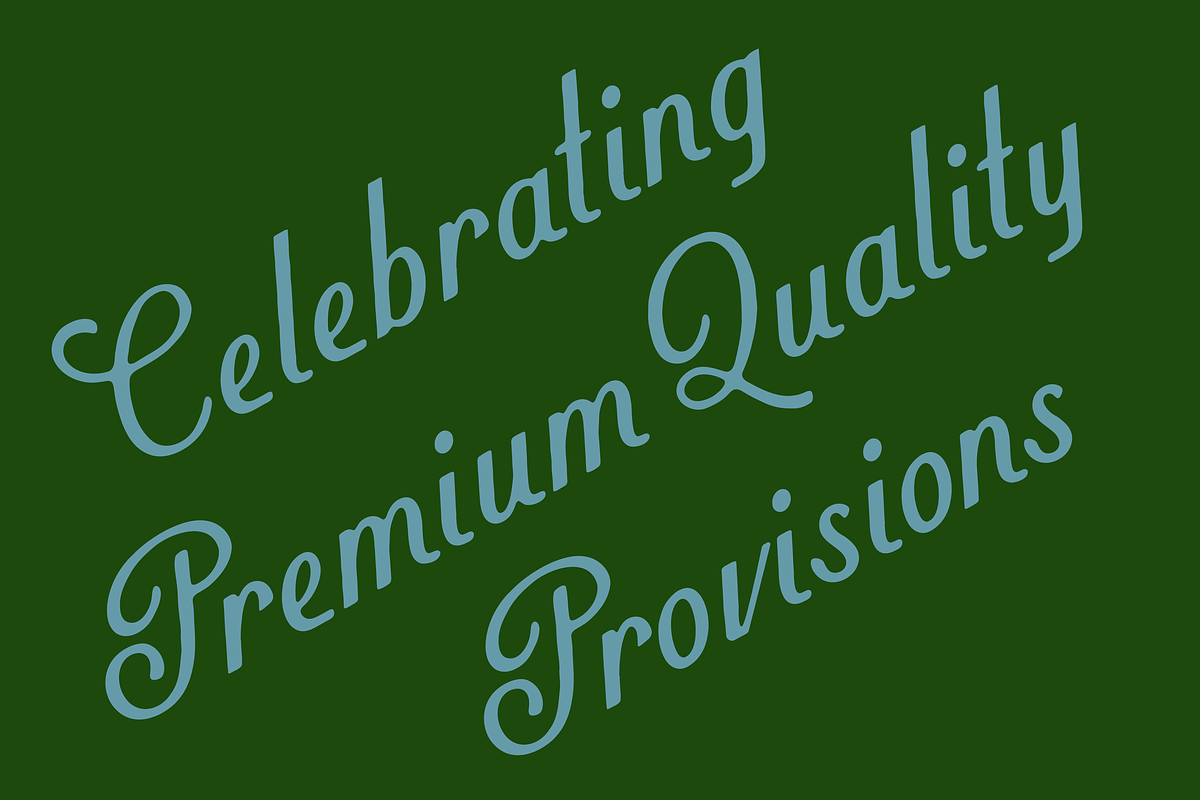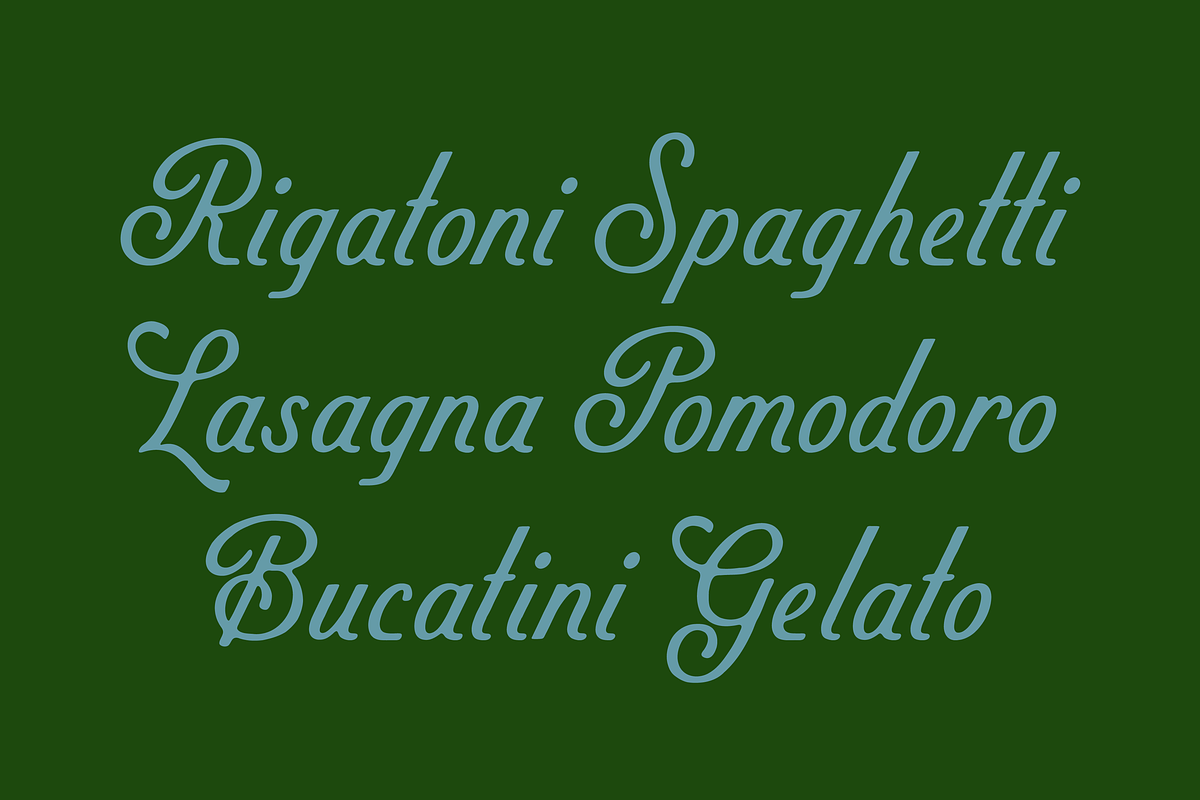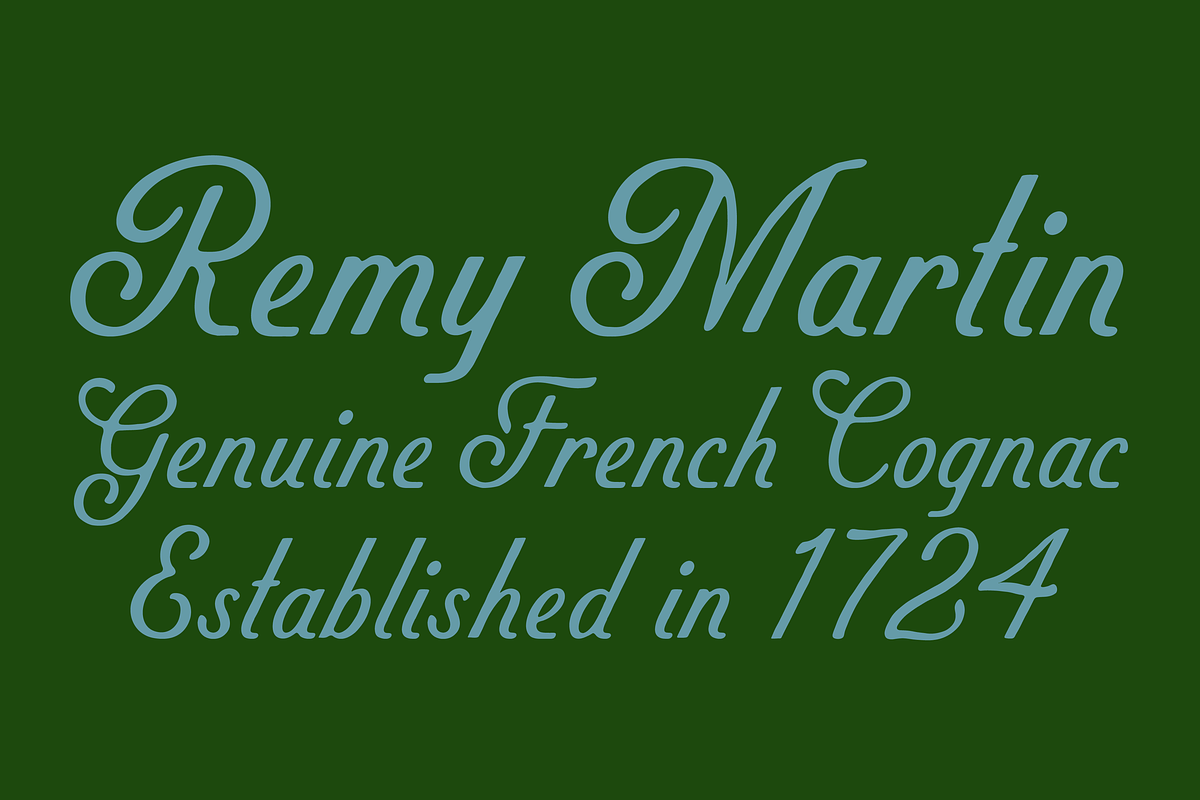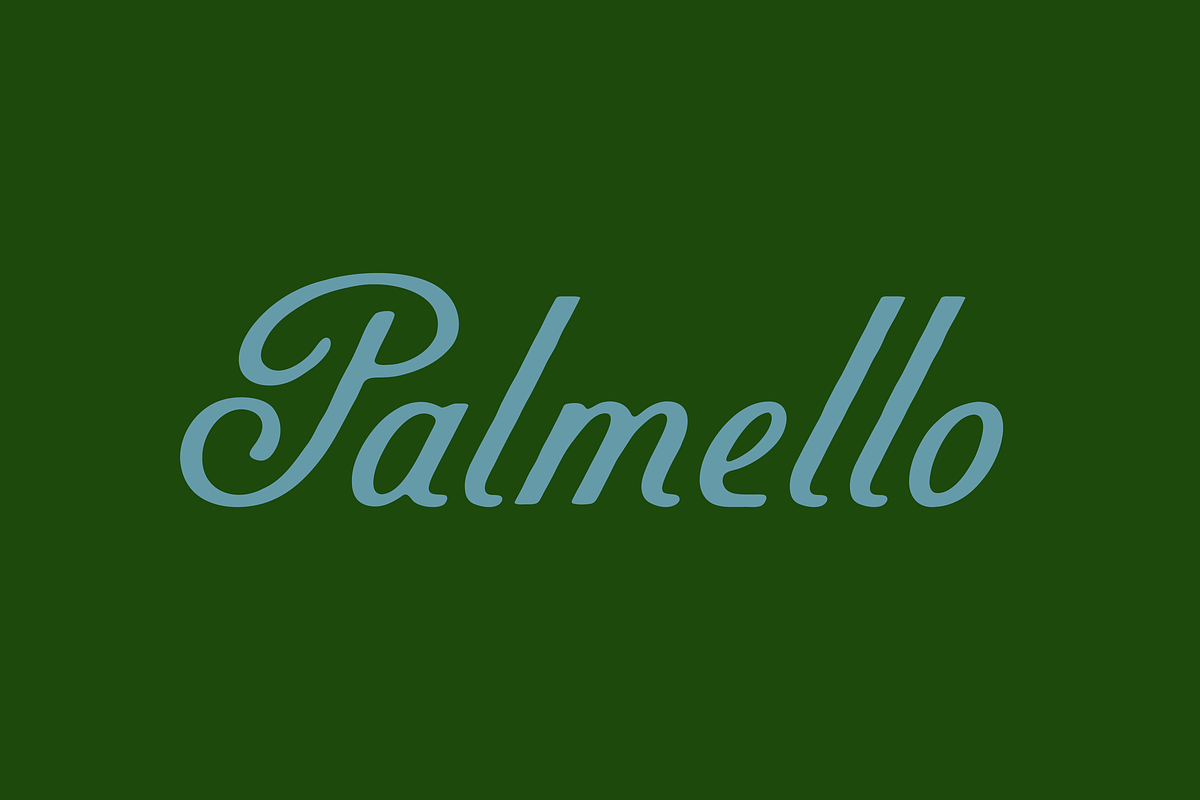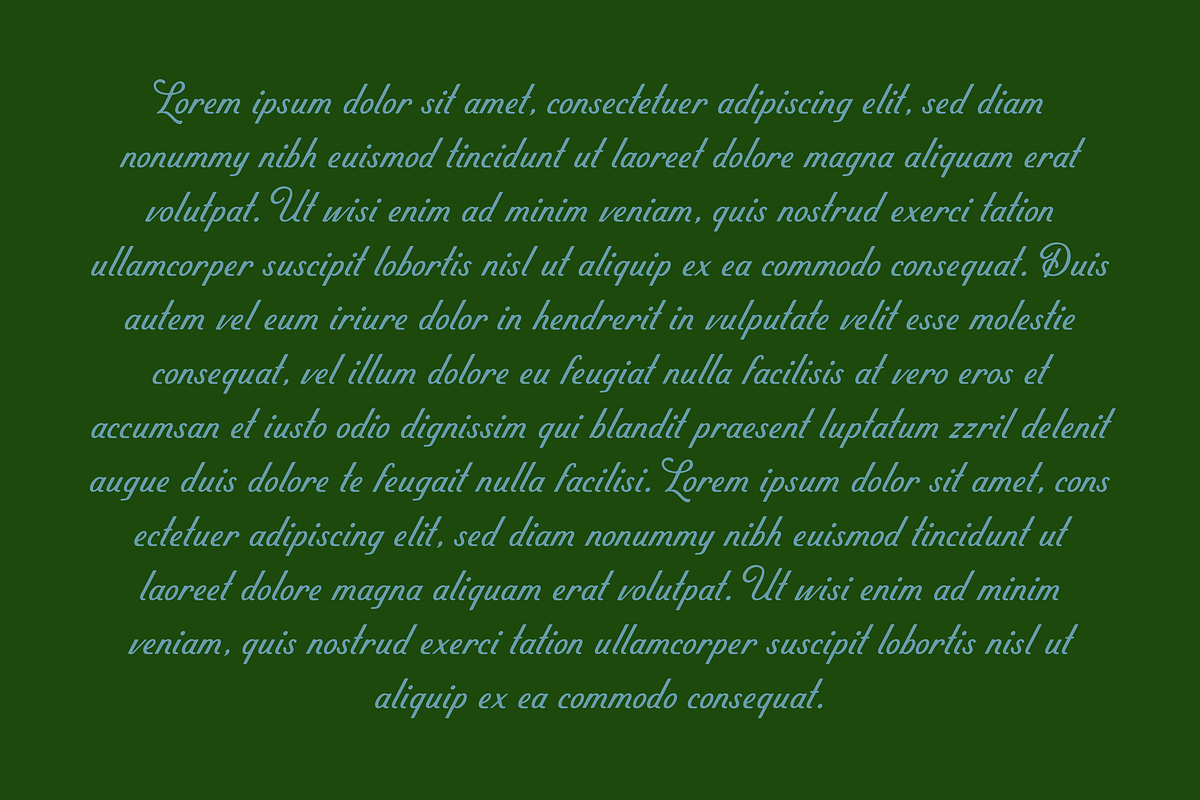
Palmello
Palmello is a non-connecting script with a hand-drawn charm, inspired by retro European advertisements from the 1950s and ’60s. It’s a versatile display typeface that also holds its own in supporting copy.